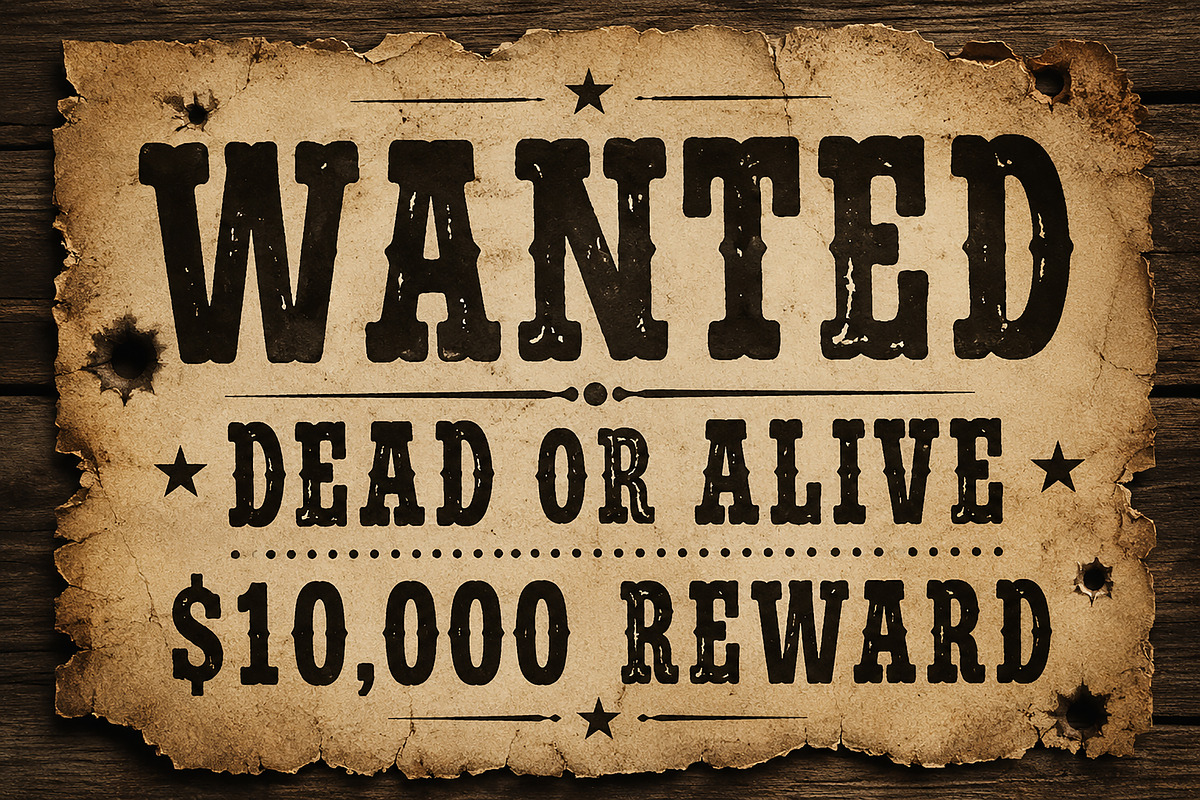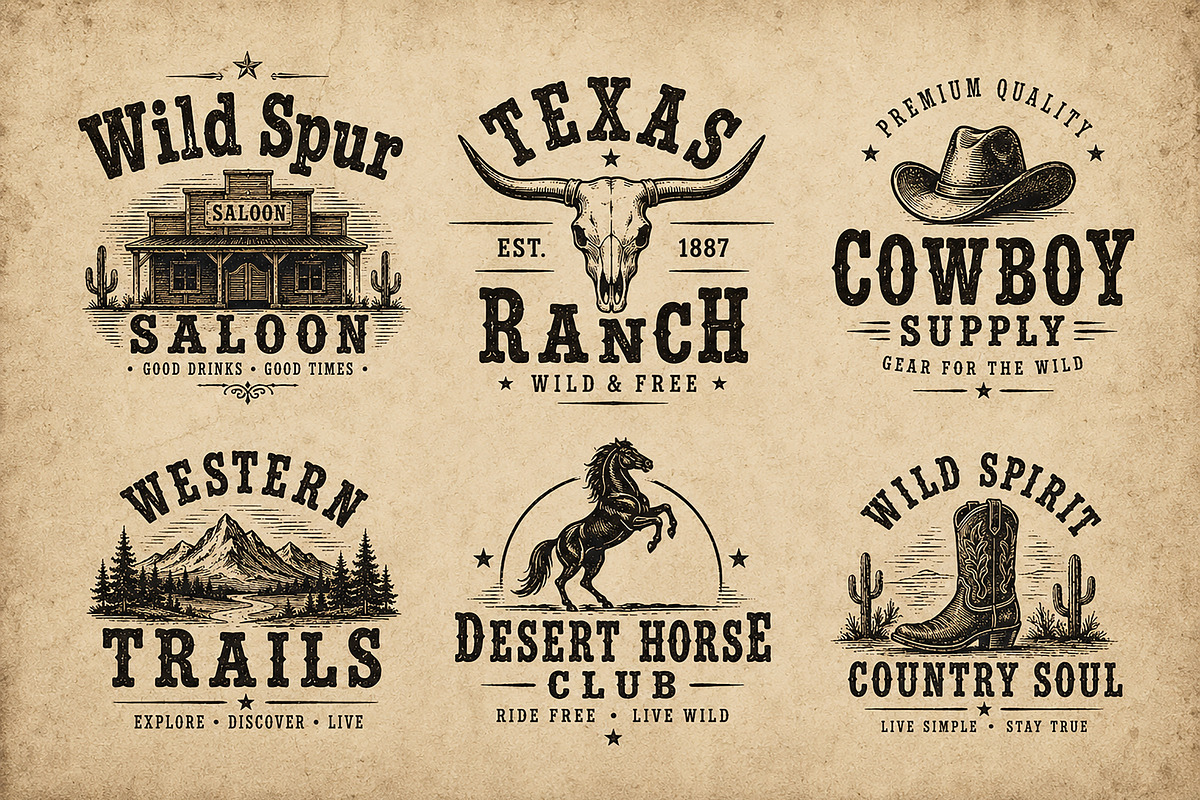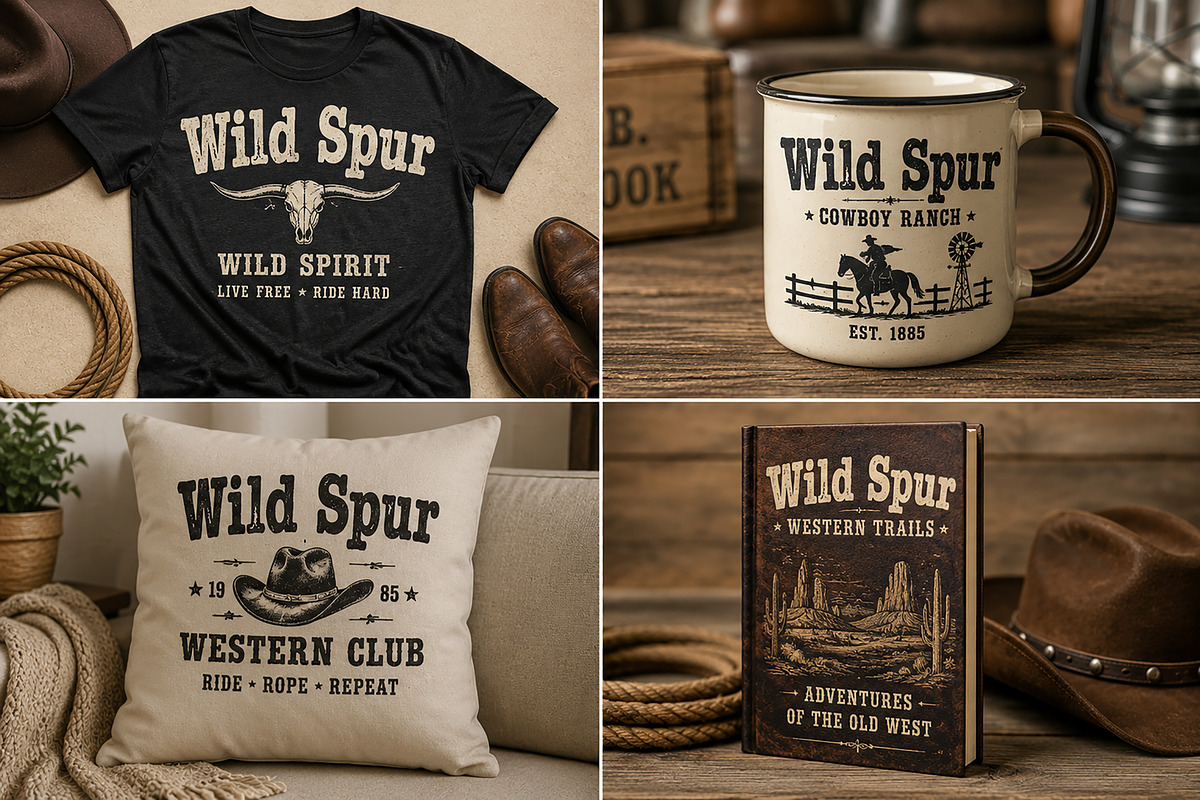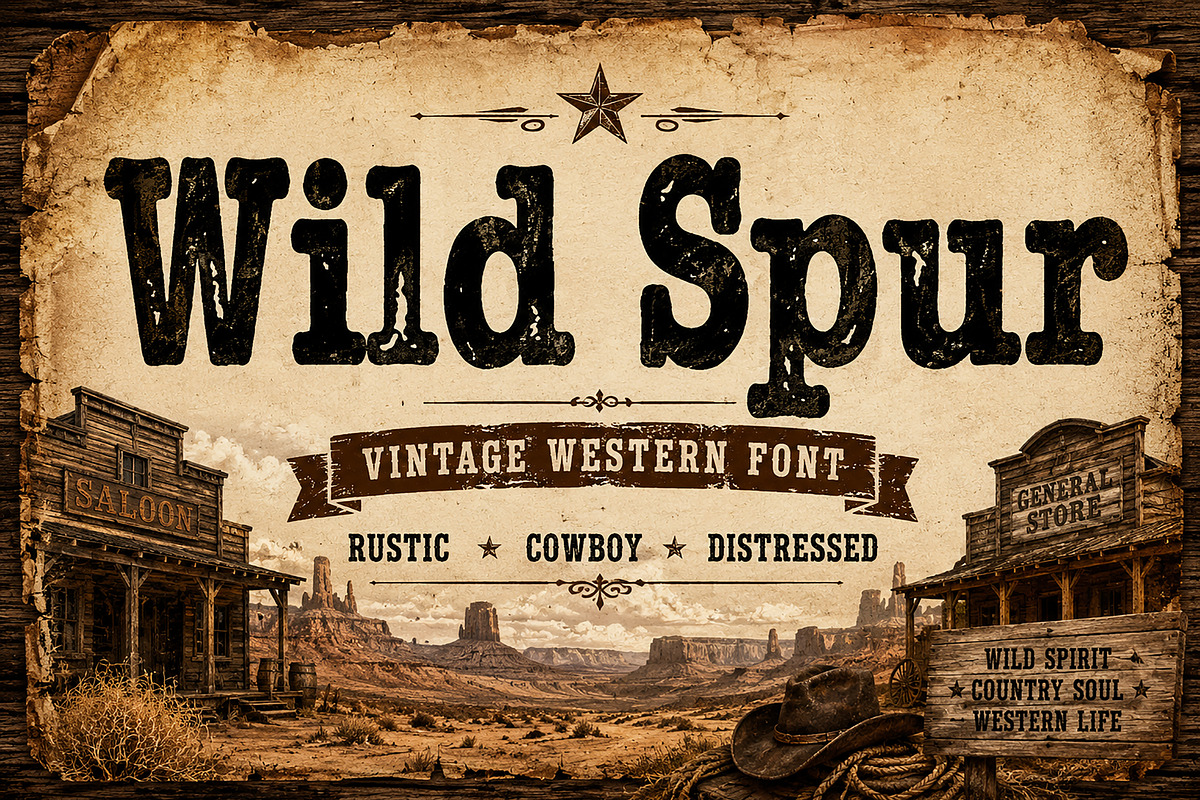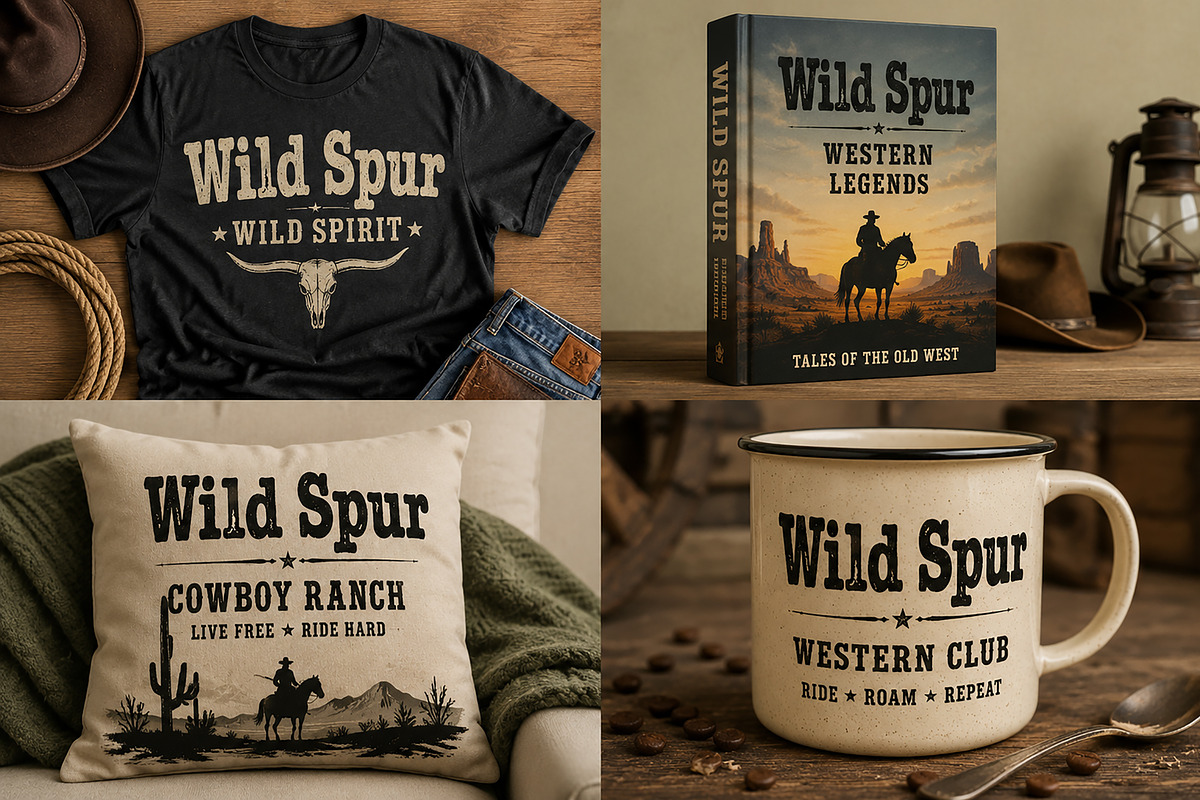
Wild Spur
Wild Spur – Vintage Western Font
Wild Spur is a bold and rugged vintage western font inspired by classic cowboy signage, saloon posters, ranch branding, and old Wild West typography. Featuring a distressed texture and strong slab-serif letterforms, this font delivers an authentic rustic character that instantly captures the spirit of the American frontier.
Perfect for western-themed branding, vintage logos, apparel designs, packaging, posters, signage, book covers, labels, invitations, and more. Whether you're creating a cowboy-inspired logo or a rustic ranch advertisement, Wild Spur adds a timeless frontier feel to every project.
Uppercase Letters
Lowercase Letters
Distressed Vintage Style
Western Logos
Cowboy Branding
Ranch & Farm Designs
Saloon Signs
Vintage Posters
T-Shirt Designs
Labels & Stickers
Rustic Wedding Invitations
Outdoor & Adventure Branding
Bring the rugged charm of the Wild West into your creative projects with Wild Spur, a font designed to make bold statements and leave a lasting impression.